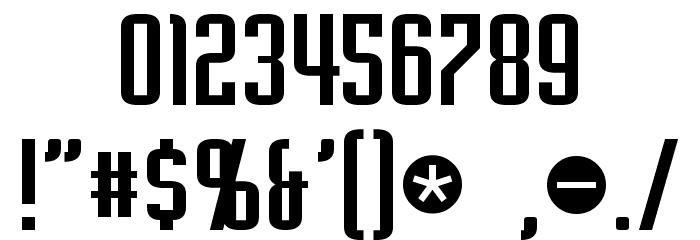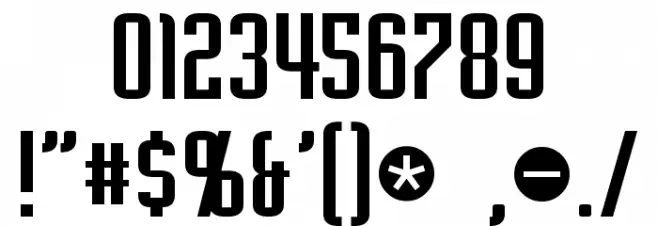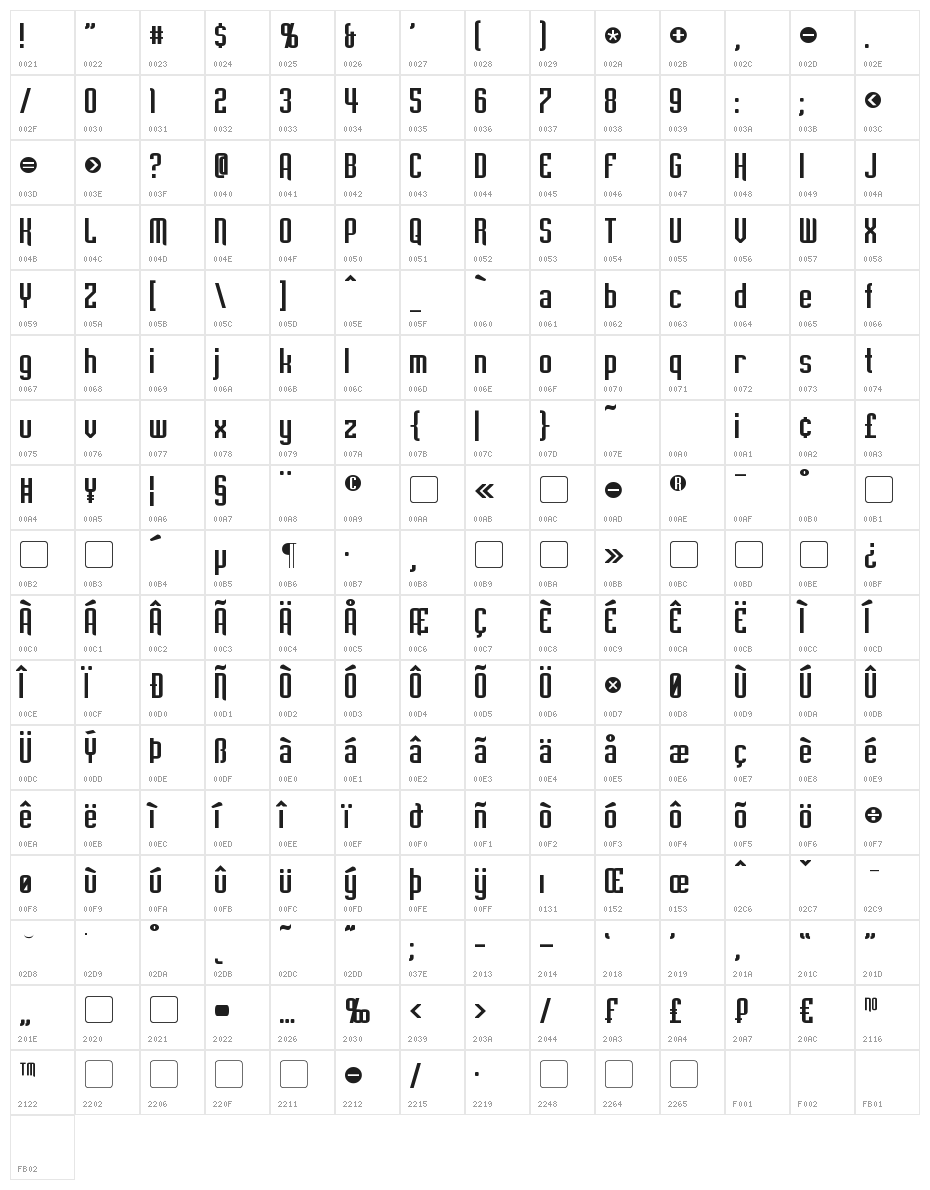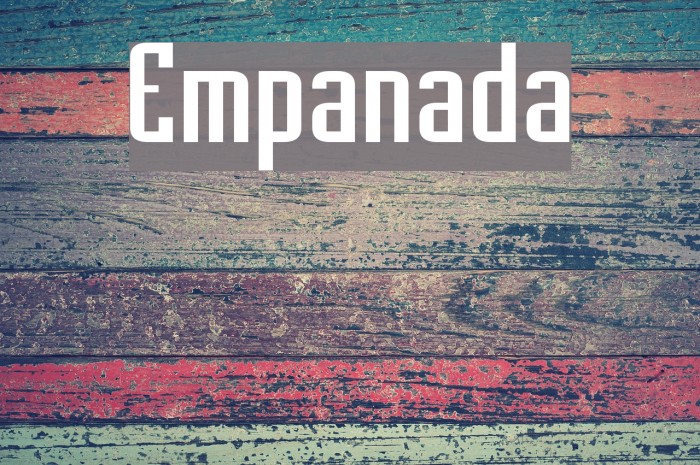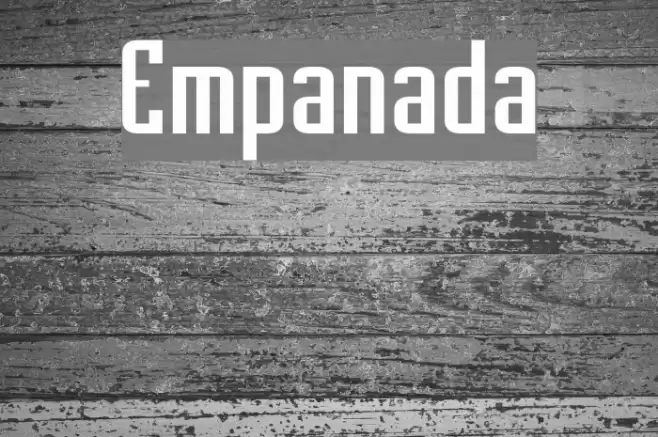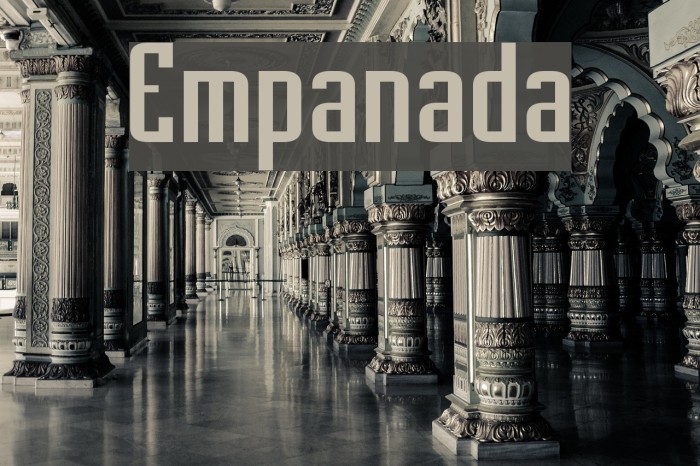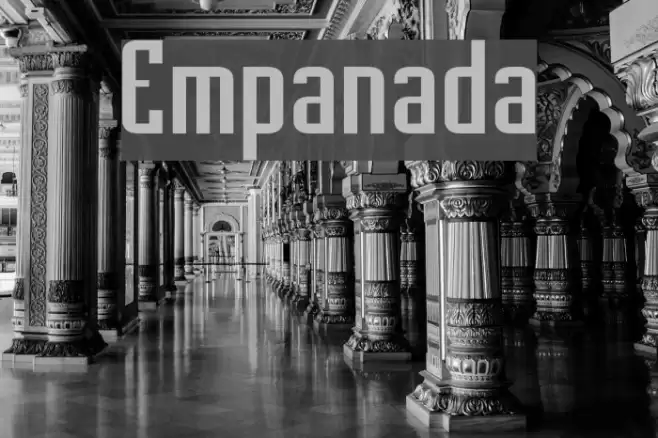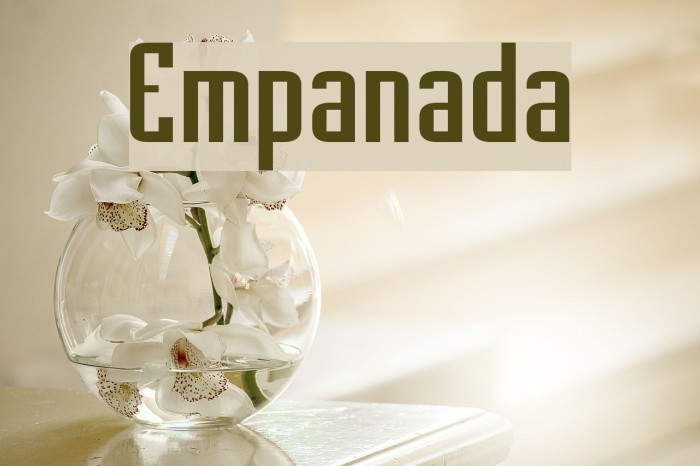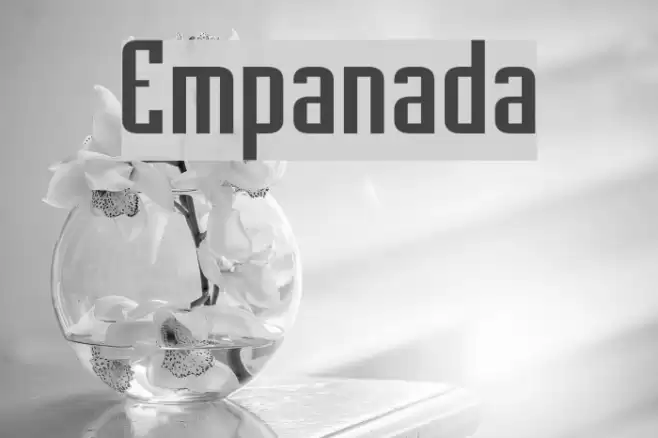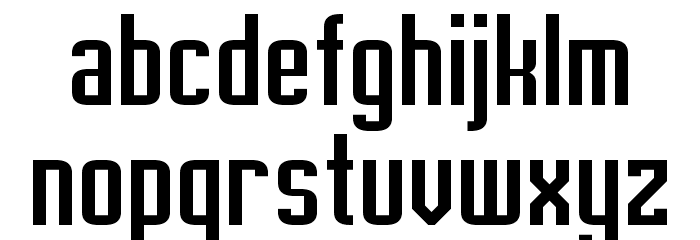
Empanada Font
Empanada Description
This font features a bold and modern design with a geometric structure. The characters are tall and narrow, with consistent stroke widths that give it a uniform appearance. The uppercase letters are particularly striking, with sharp angles and a strong presence. The lowercase letters maintain the same geometric style, ensuring readability while adding a unique flair. Numbers and special characters are designed to match the overall aesthetic, making this font versatile for various applications. The clean lines and lack of serifs contribute to its contemporary feel, making it suitable for modern design projects.